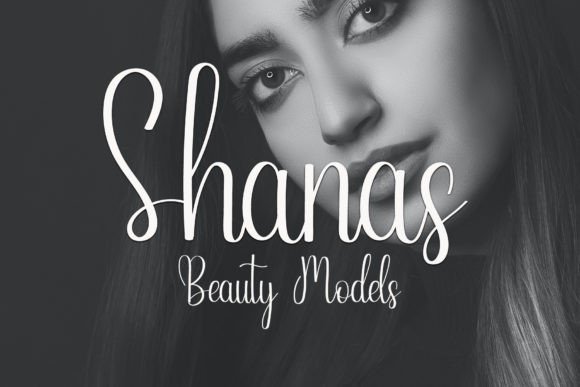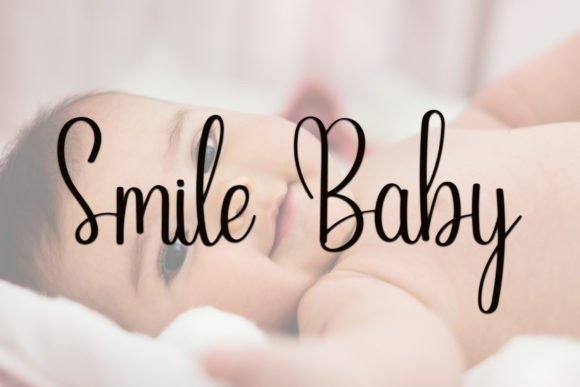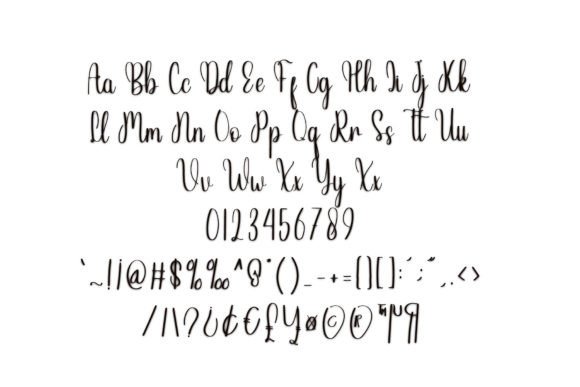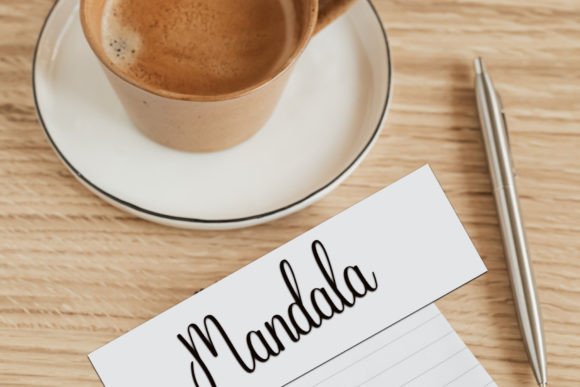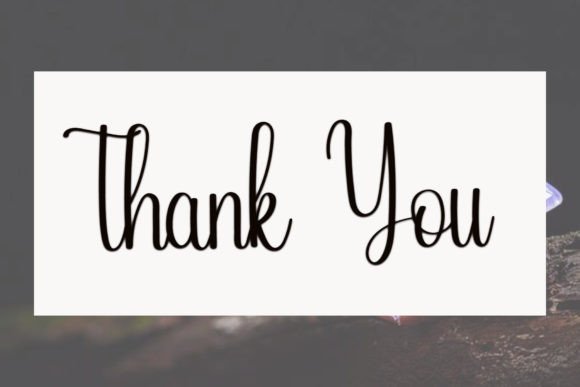
Discover the Timeless Charm of Change Font
You know that feeling when you stumble upon a font that just clicks? It’s like finding a missing piece to your creative puzzle, and suddenly, your project is transformed into something truly special. That’s exactly what happens when you meet Change Font – a beautiful, elegant handwritten font that adds a touch of sophistication to any design.
With its distinct style and timeless charm, Change Font is perfect for designers looking to add a personal touch to their projects. Whether you’re working on a branding campaign, a wedding invitation, or a social media graphic, this font is sure to make your design stand out. And with its versatility, you can use Change Font to create a wide range of styles, from modern and sleek to vintage and whimsical.
So why settle for a generic font when you can use Change Font to give your projects a unique and memorable touch? With its elegant touch and incredibly distinct style, this font is a must-have for any designer looking to make a lasting impression.